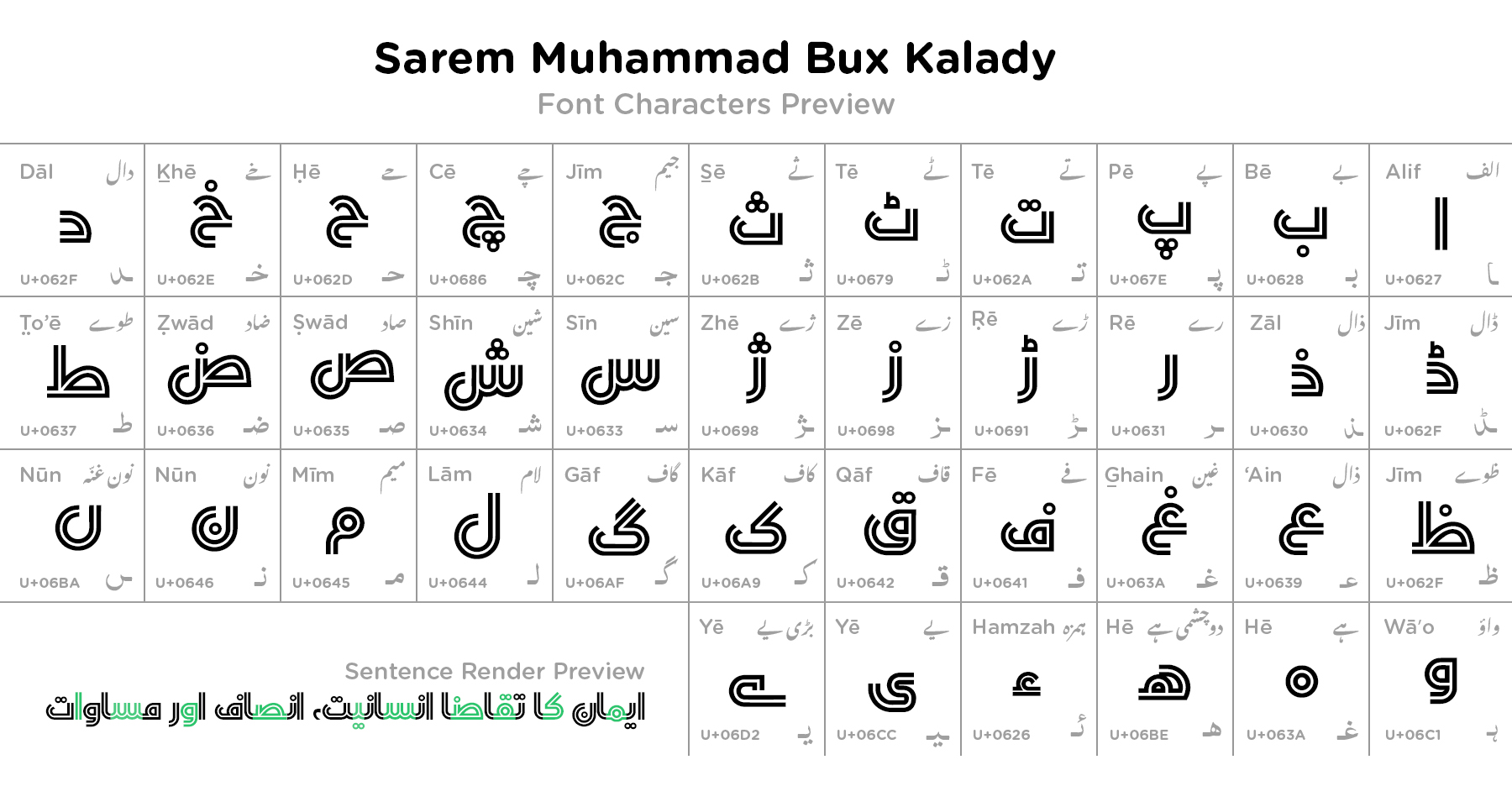
Sarem Muhammad Bux Kalady is a Sindhi font designed by Pakistani font designer Sanaullah Mangnejo Sarem under the manufacturer, Ayesha Graphics. This font is considered a standard for the Sindhi language and is used by the Government of Sindh. It has 616 glyphs which makes it a flexible font to write in different languages including Sindhi, Urdu, Saraiki, Arabic, and Persian. This font is stencil style with hollowed letters and open edges, making it highly readable and clear. Sarem Muhammad Bux Kalady comes in Medium (Normal) font width making it the perfect choice to make eye-catching headings and attractive brochures and posters, along with other artistic purposes. However, it is not suitable for longer texts as it would be difficult to read it due to its widely spaced characters. Therefore, you often see this type of font in newspapers, brochures, YouTube thumbnails, and posters.